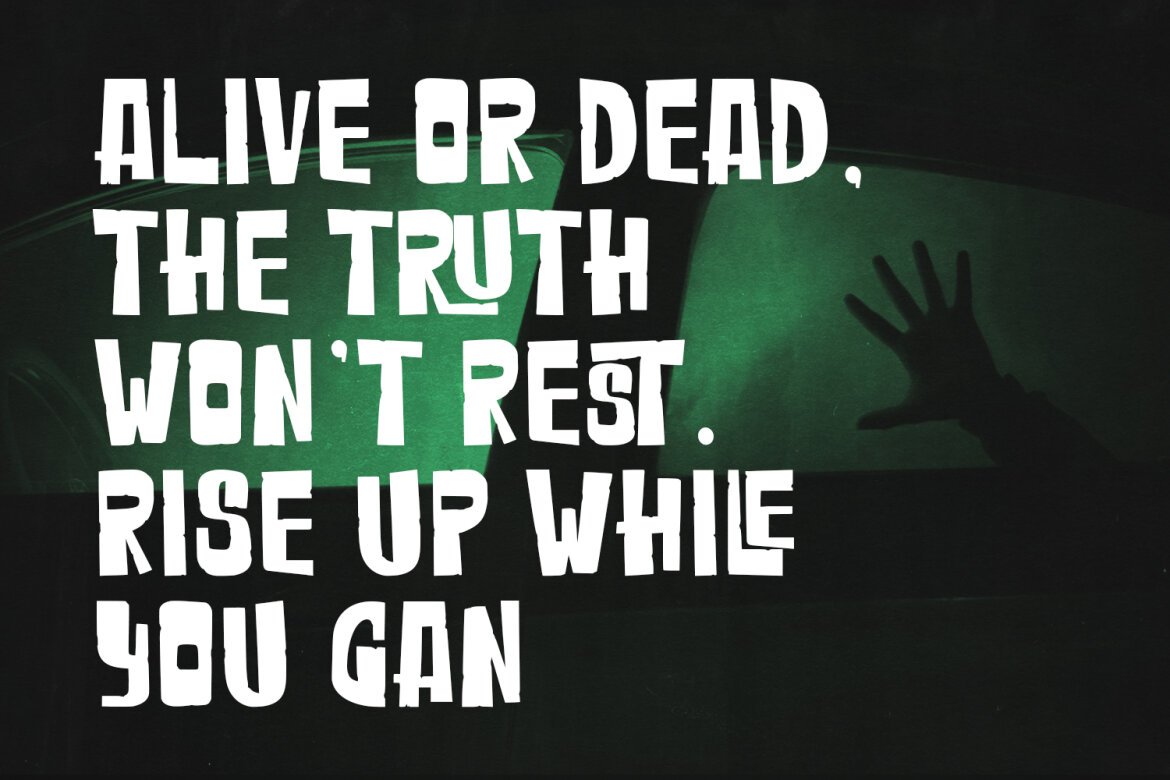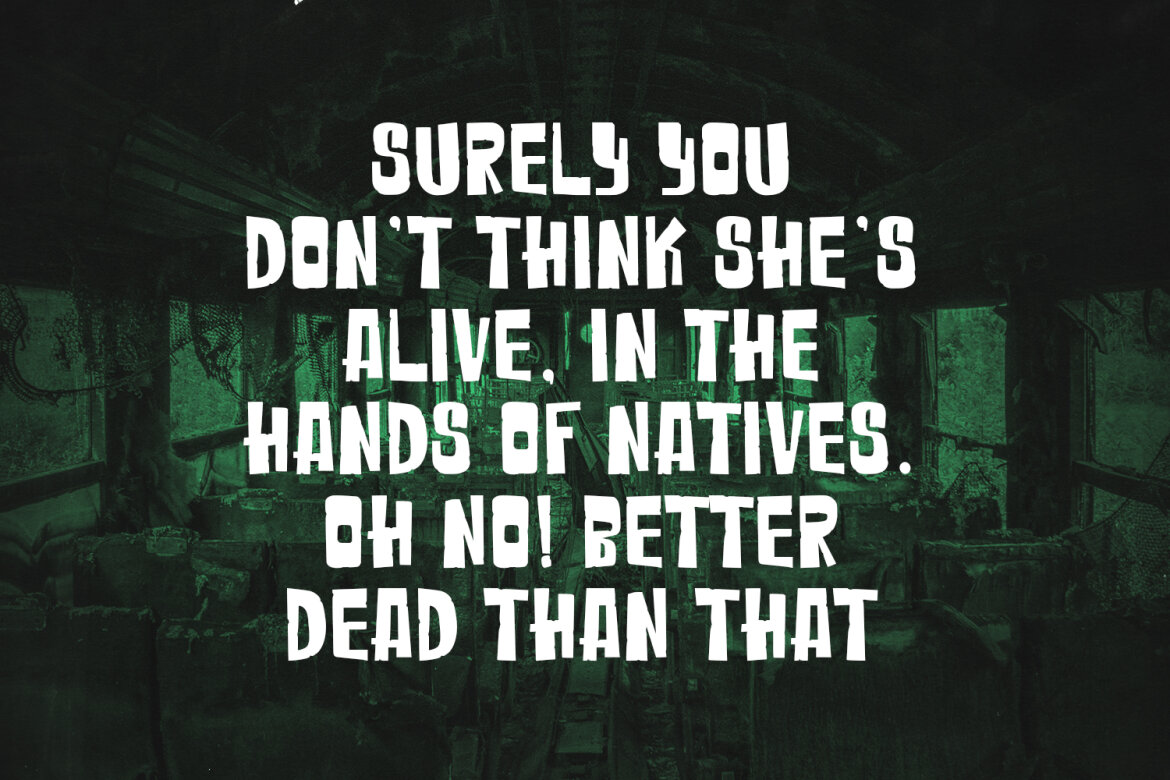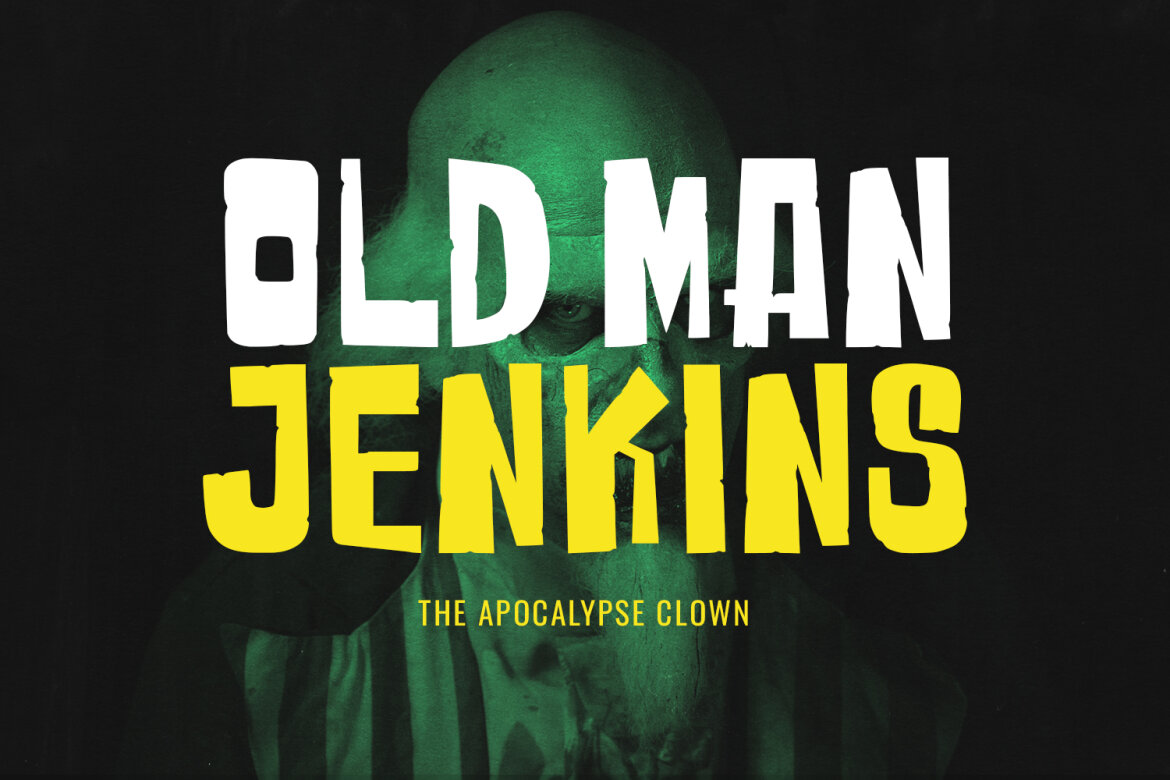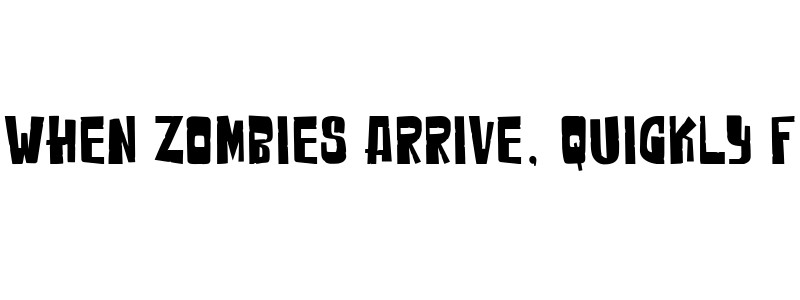
Zombreak Horror Vintage FREE Font
Zombreak
Step into the world of classic horror and retro suspense with Zombreak, a display font designed to give your projects a raw, spine-chilling edge. Inspired by vintage zombie movie posters and apocalyptic aesthetics, Zombreak features rugged, blocky letterforms with a hand-carved feel that screams "survival."
Whether you are designing a title for a horror film, a spooky Halloween party invitation, a gritty comic book cover, or gaming merchandise, Zombreak provides the perfect balance of vintage charm and terrifying impact. It comes packed with unique ligatures and multilingual support to ensure your designs look professional and custom-made.
Main Features:
• Unique Character Set: Gritty, bold, and high-impact letters.
• Special Ligatures: Enhances the custom look of your typography.
• Full Numeric & Punctuation: Complete set for all your creative needs.
• Multilingual Support: Reach a global audience effortlessly.
• Versatile Use: Perfect for logos, posters, apparel, game UI, and social media branding.